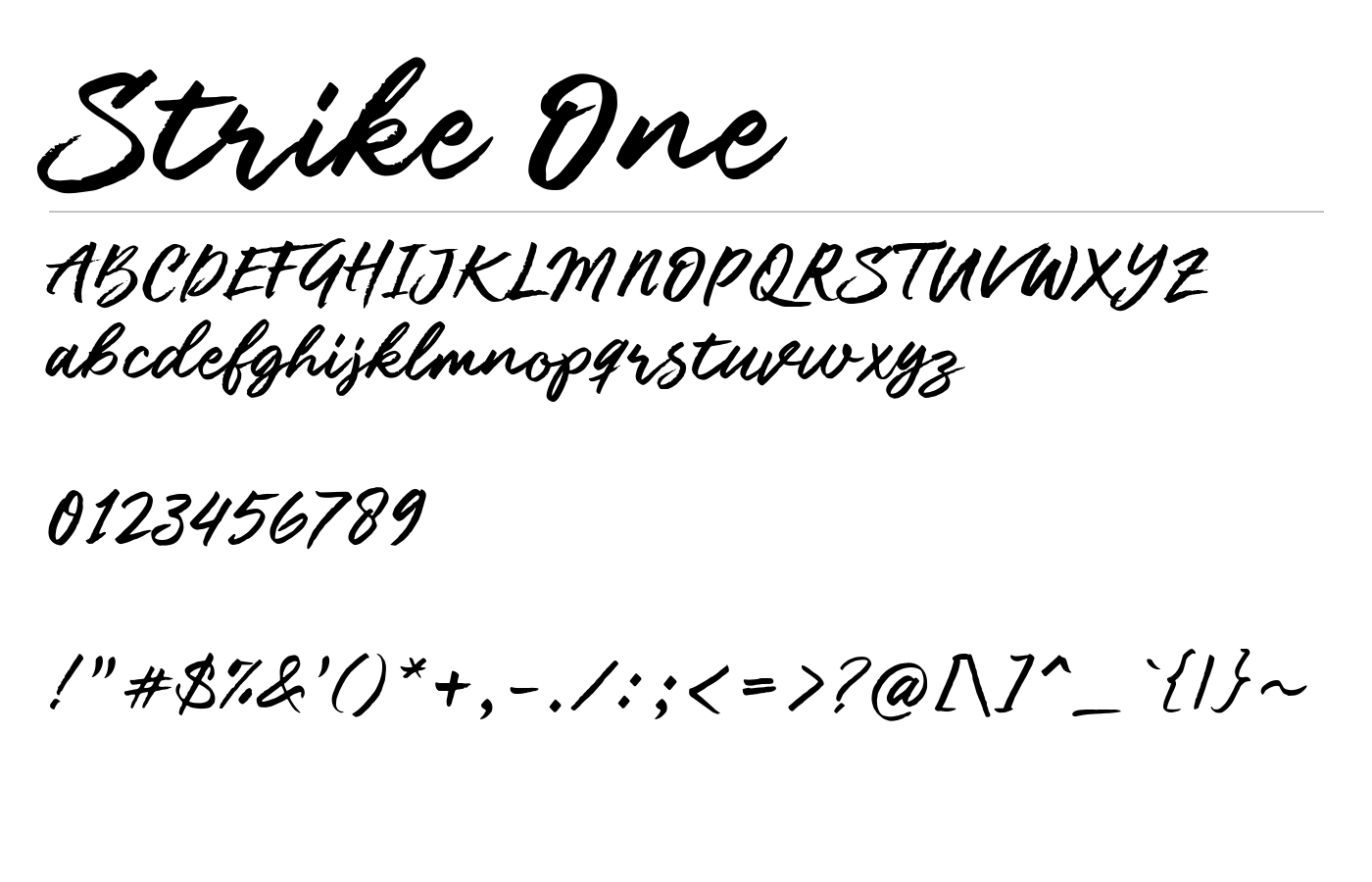
Strike One Script Font
Strike One Script Font is the latest freebie coming from JROH Creative. This one is available with all the complete features. Strike One Script consists of Opentype Features; standard ligatures, contextual alternates and 11 swash. This beautiful script will look great on many different design projects. Add the stylish yet elegant touch on your invitation or greeting card design, business cards, social media post, logotype and many more!